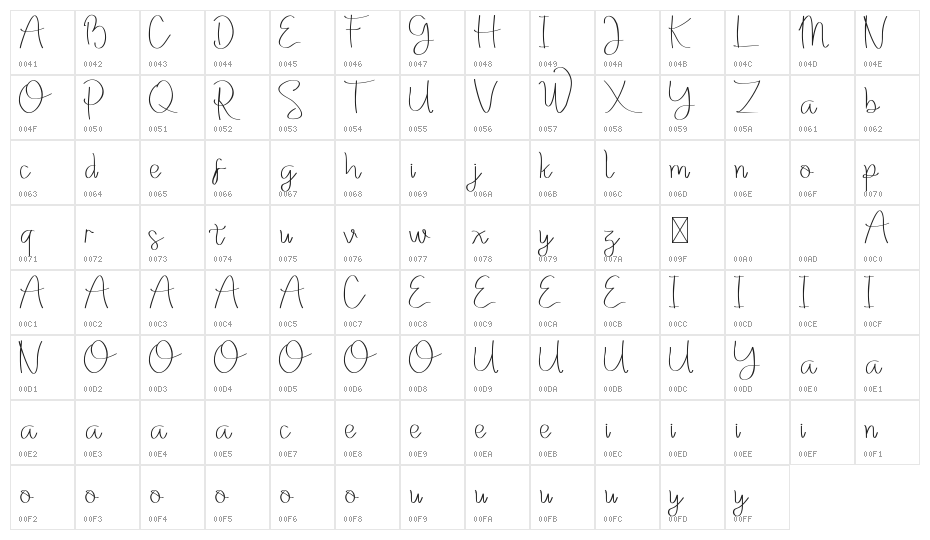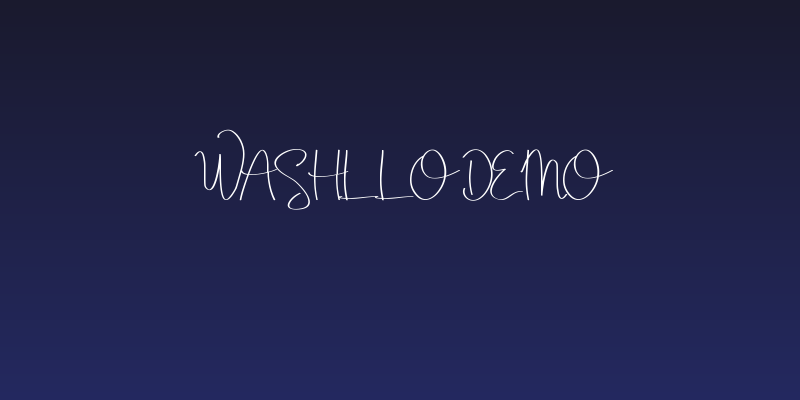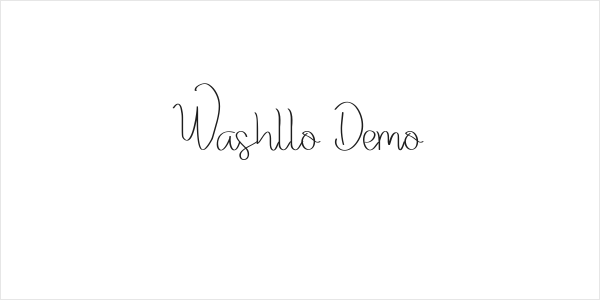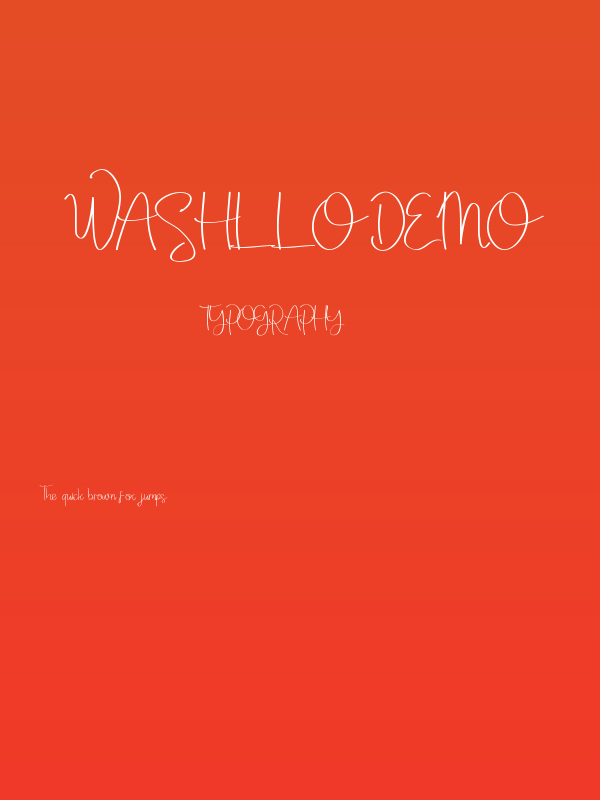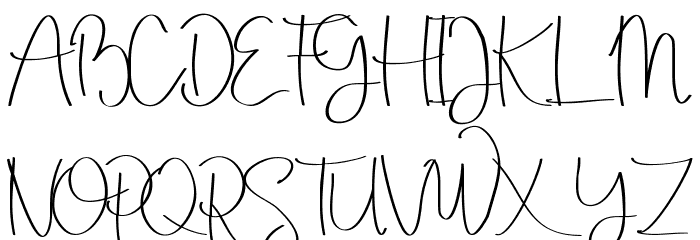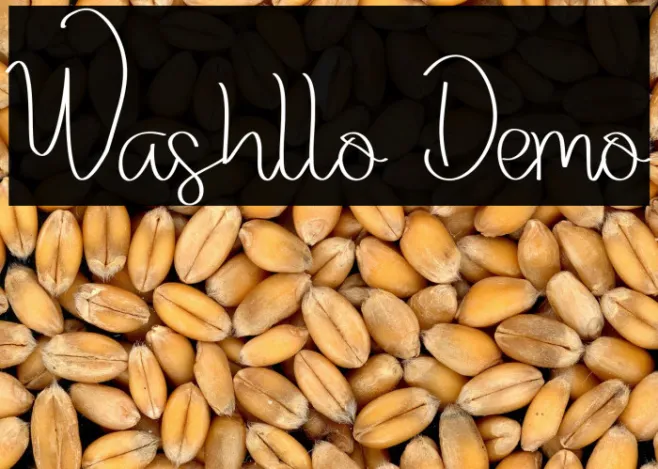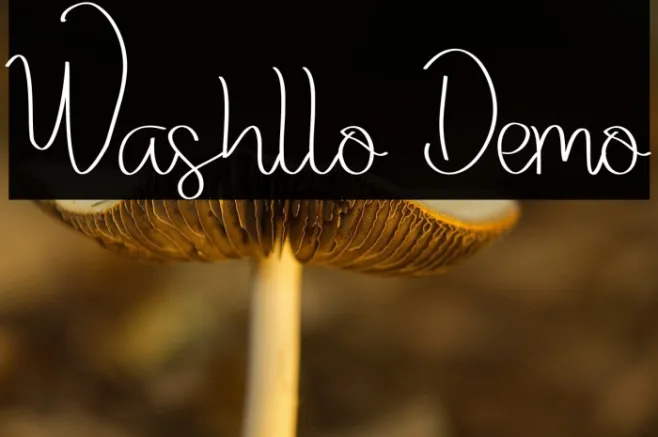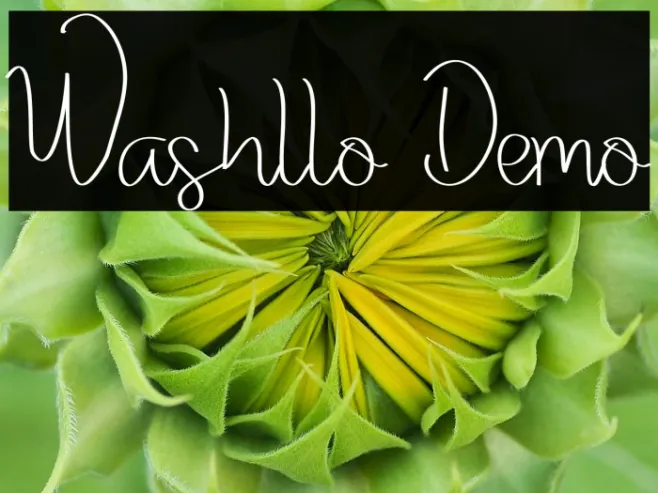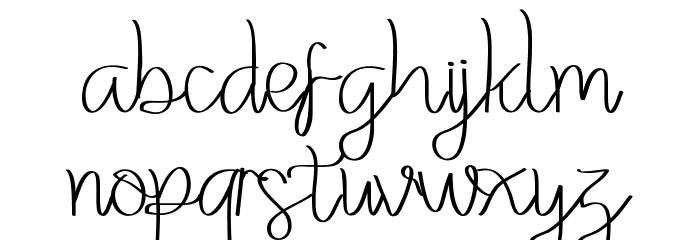
Washllo Demo Font
Washllo Demo Description
This font features a whimsical and flowing script style, characterized by its elegant and fluid letterforms. The uppercase and lowercase letters are designed with a consistent stroke width, creating a harmonious and balanced appearance. The letters are interconnected in a cursive manner, giving the font a handwritten feel. The overall design is playful yet sophisticated, making it suitable for creative projects. The font includes a full set of uppercase and lowercase letters, numbers, and a selection of special characters, all maintaining the same artistic flair.
| Proposed Projects | Ideal for wedding invitations, greeting cards, branding, and artistic projects requiring a personal touch. |